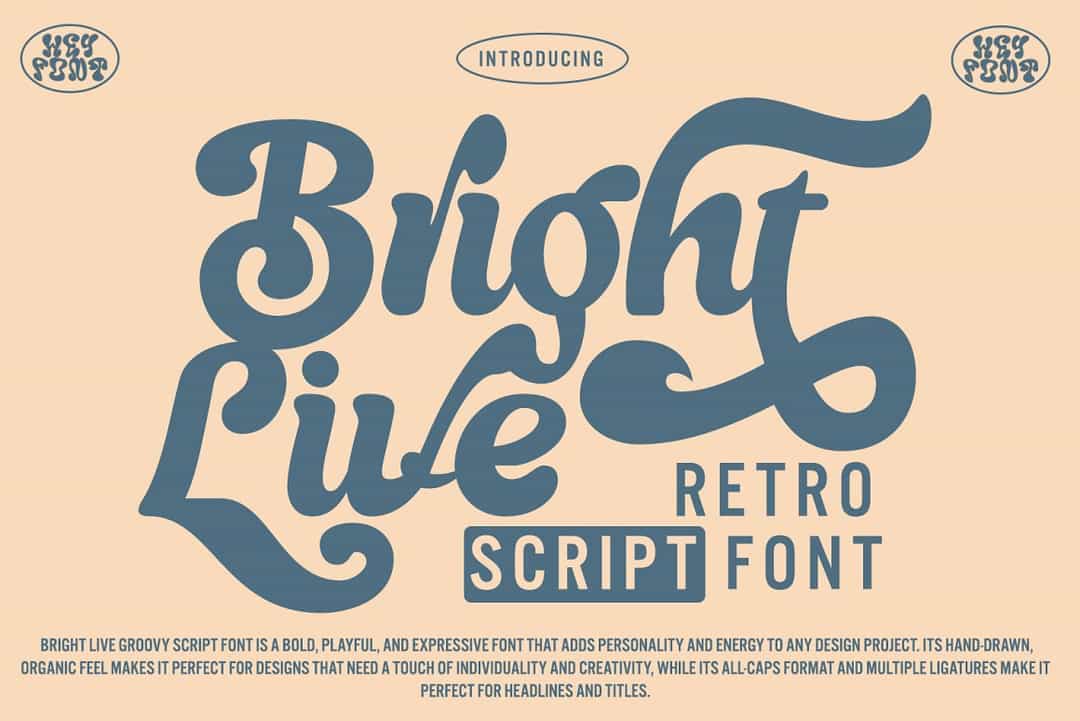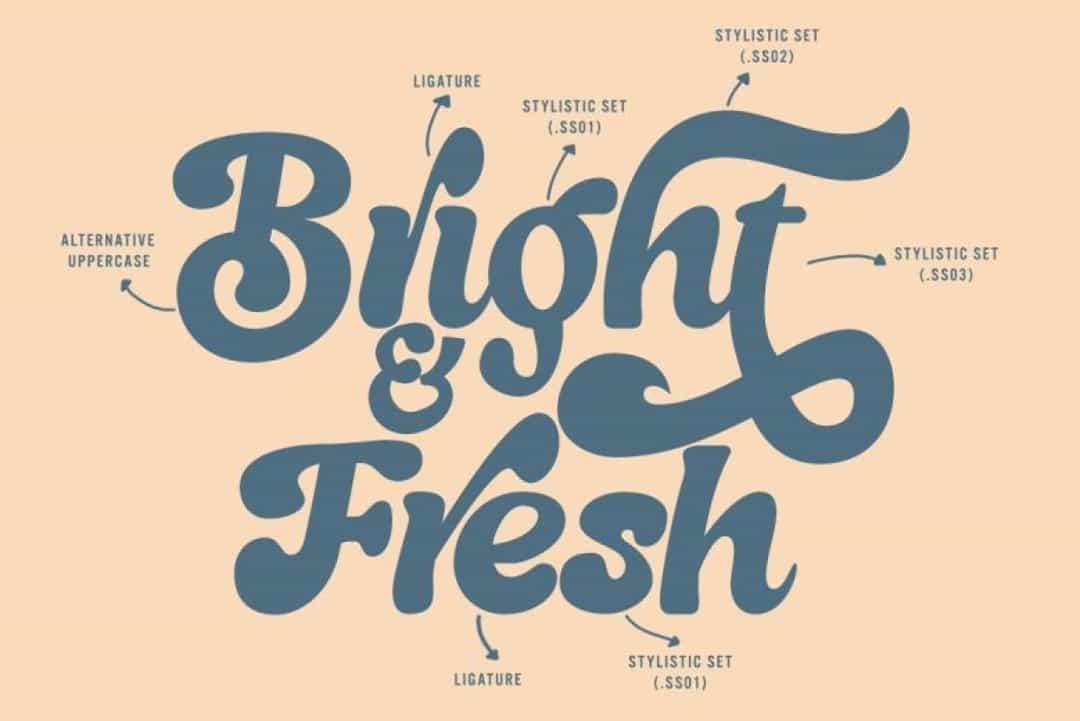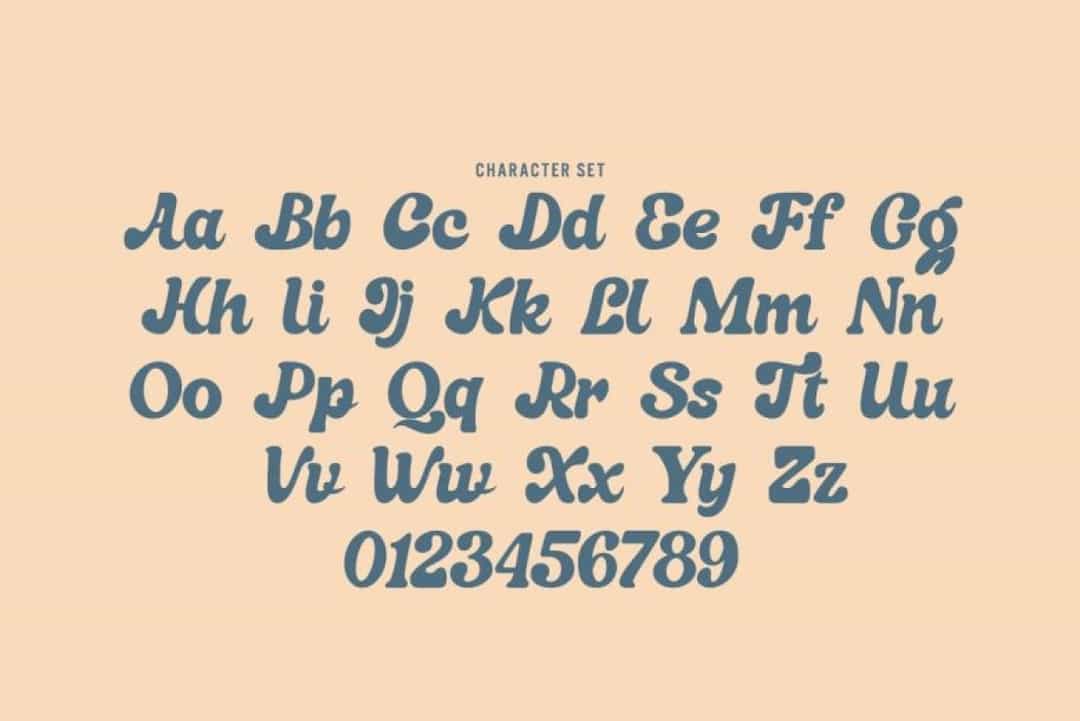
Bright Live Retro Script Font is an old-fashioned typeface ideal for classic design work, featuring its curvy yet elegant handwritten style that exudes timeless elegance and nostalgia. Available both bold and regular weights, this font also includes uppercase numerals, letters and punctuation symbol – ideal for classic design work!